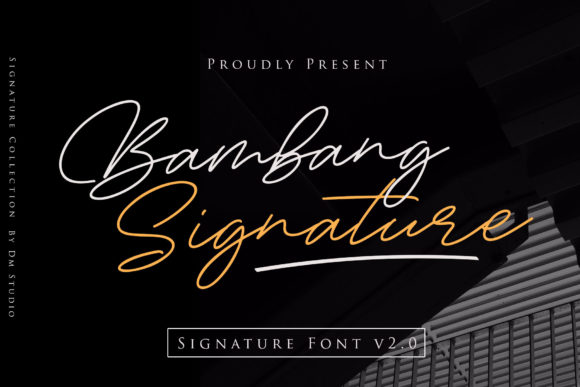
Behold Bambang: Signature Flourishes for Your Creative Endeavors!
Step into a world of romantic artistry with Bambang Signature, a breathtaking script font that exudes elegance and grace. Created by the visionary dmletter31, this masterpiece is crafted with the utmost care, ensuring that every letter and flourish is a testament to timeless beauty.
Unleash your creativity with Bambang and let your words dance across the page with an air of effortless sophistication. Whether you're crafting invitations for a special occasion, designing heartfelt cards, or adding a personal touch to your digital projects, Bambang is the ultimate choice for injecting a dash of charm and allure.
This script font is more than just a collection of characters; it's an invitation to embark on a creative journey where your imagination knows no bounds. With its flowing lines and enchanting curves, Bambang will transform your words into works of art, leaving an unforgettable impression on your audience.